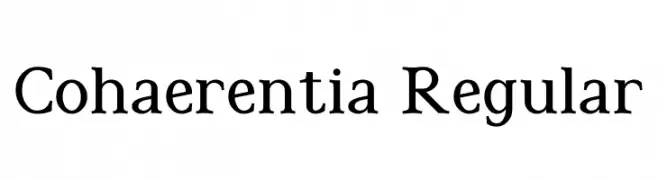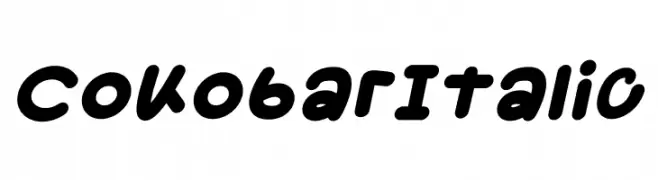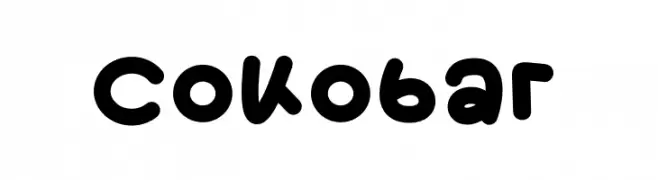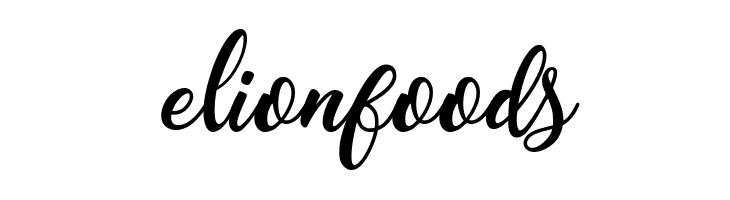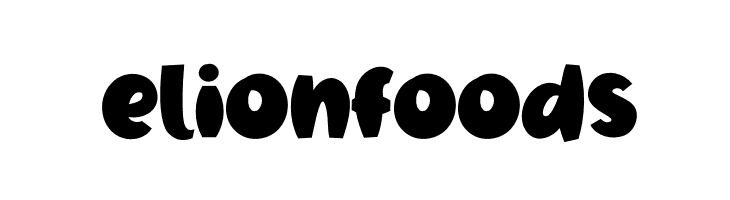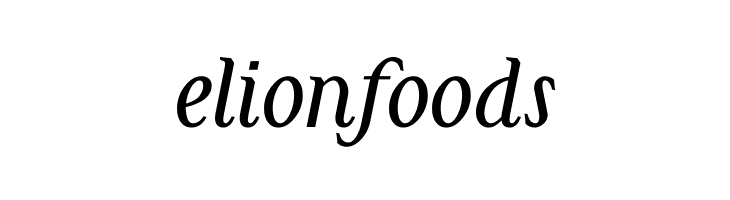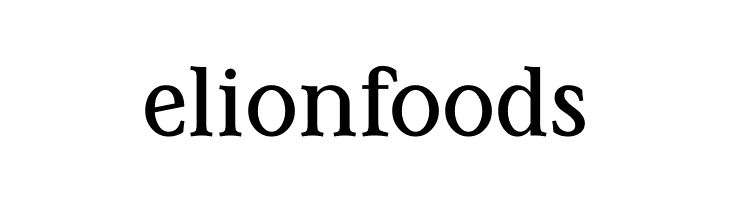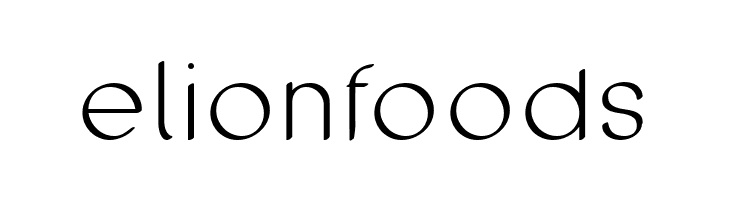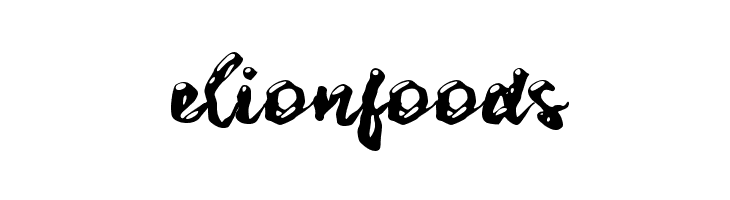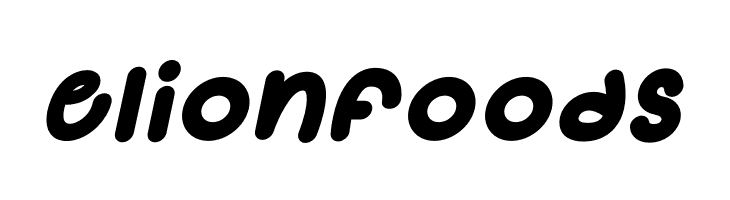
A sleek, ultra-light font with a modern and minimalist design.
A bold, playful font with thick, rounded strokes and a whimsical style.
An elegant italic font with flowing letterforms and moderate contrast.
A classic serif font with elegant curves and balanced readability.
A classic serif font with elegant curves and balanced proportions.
An elegant and ornate script font with flowing, decorative letterforms.
A bold, ornate blackletter font with intricate details and a gothic style.
A playful, bold script font with a melted chocolate appearance.
A playful, rounded font with bold, smooth curves and a friendly appearance.
A playful, bold, and rounded italic font with a friendly appearance.